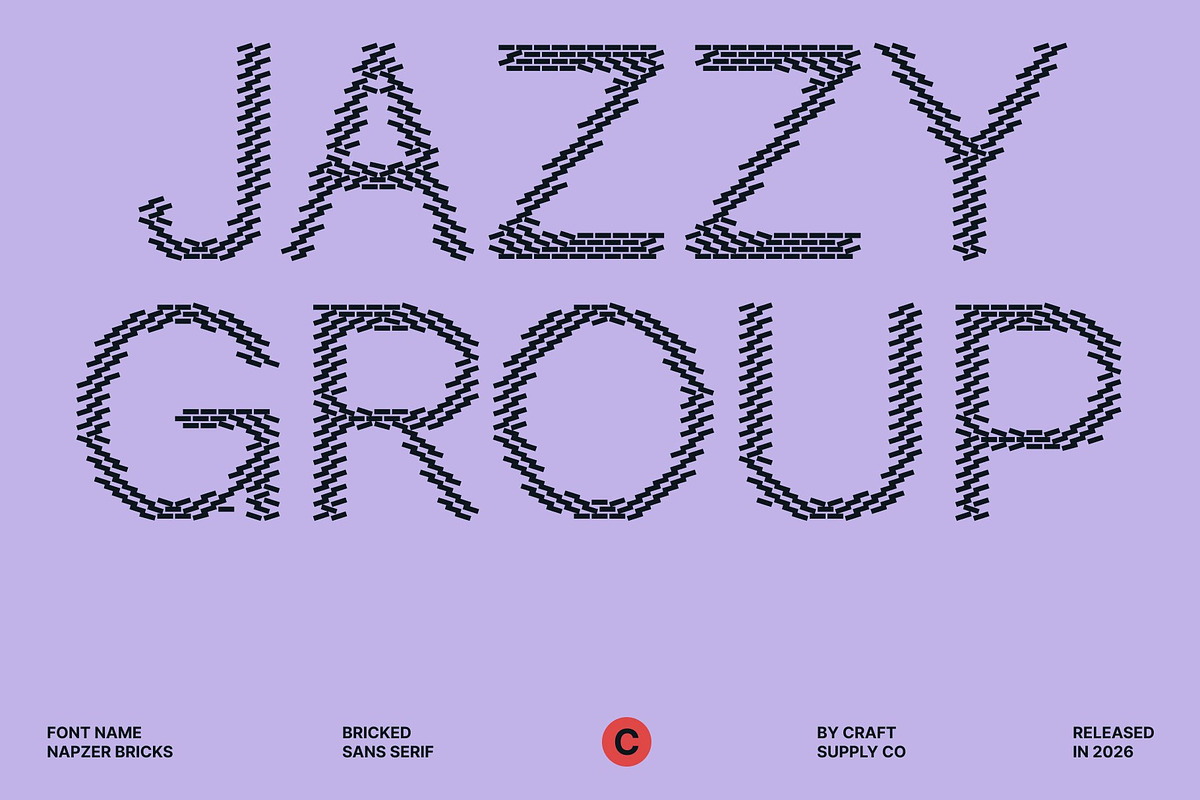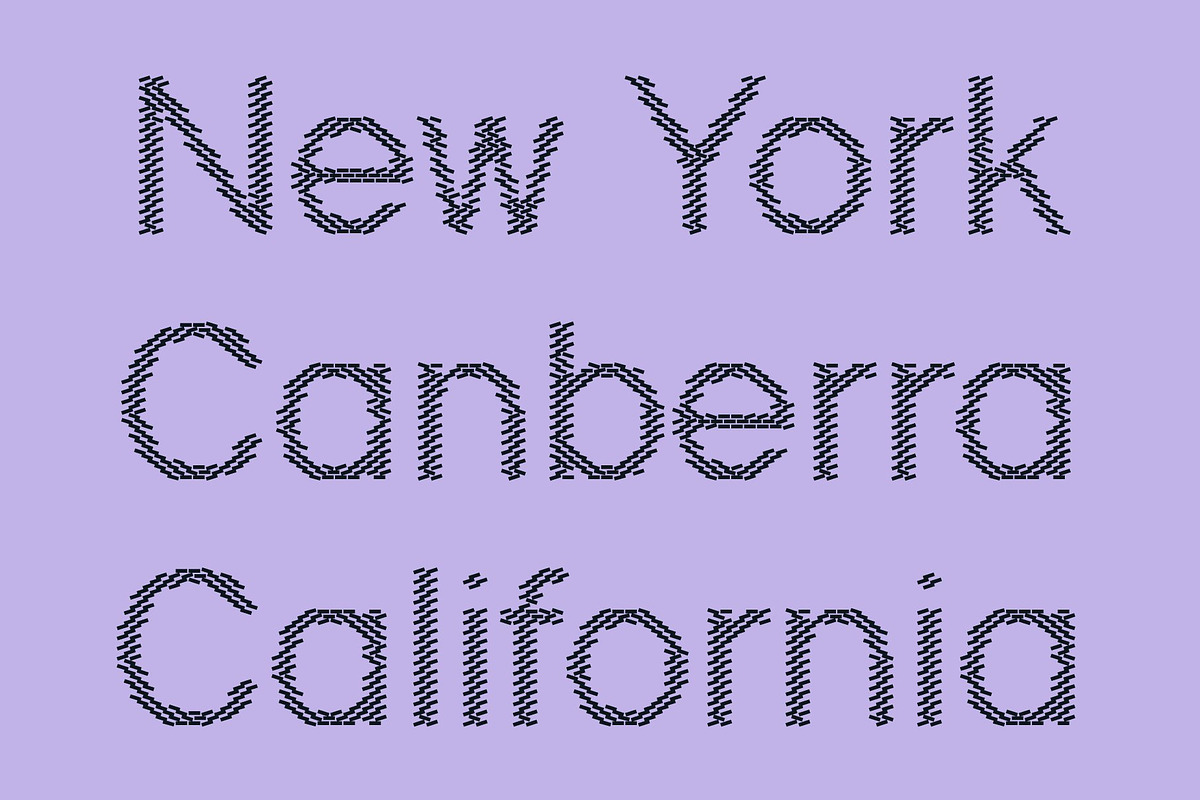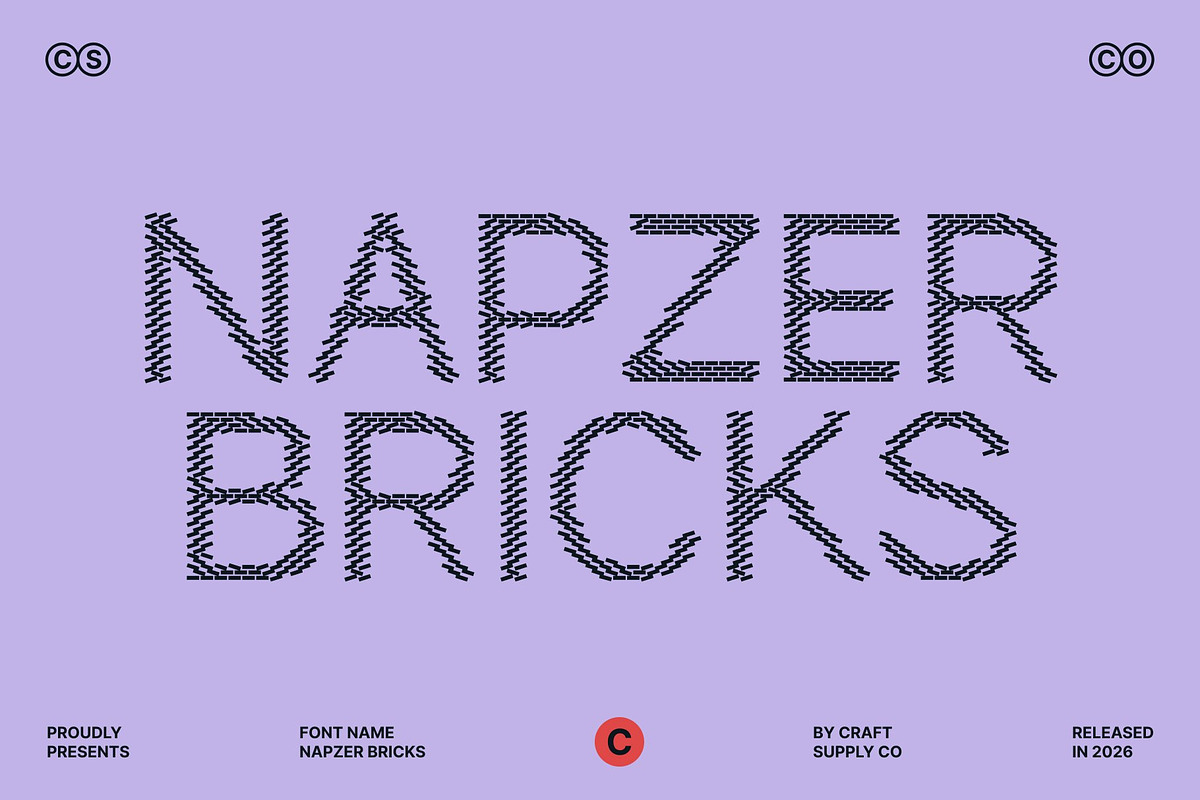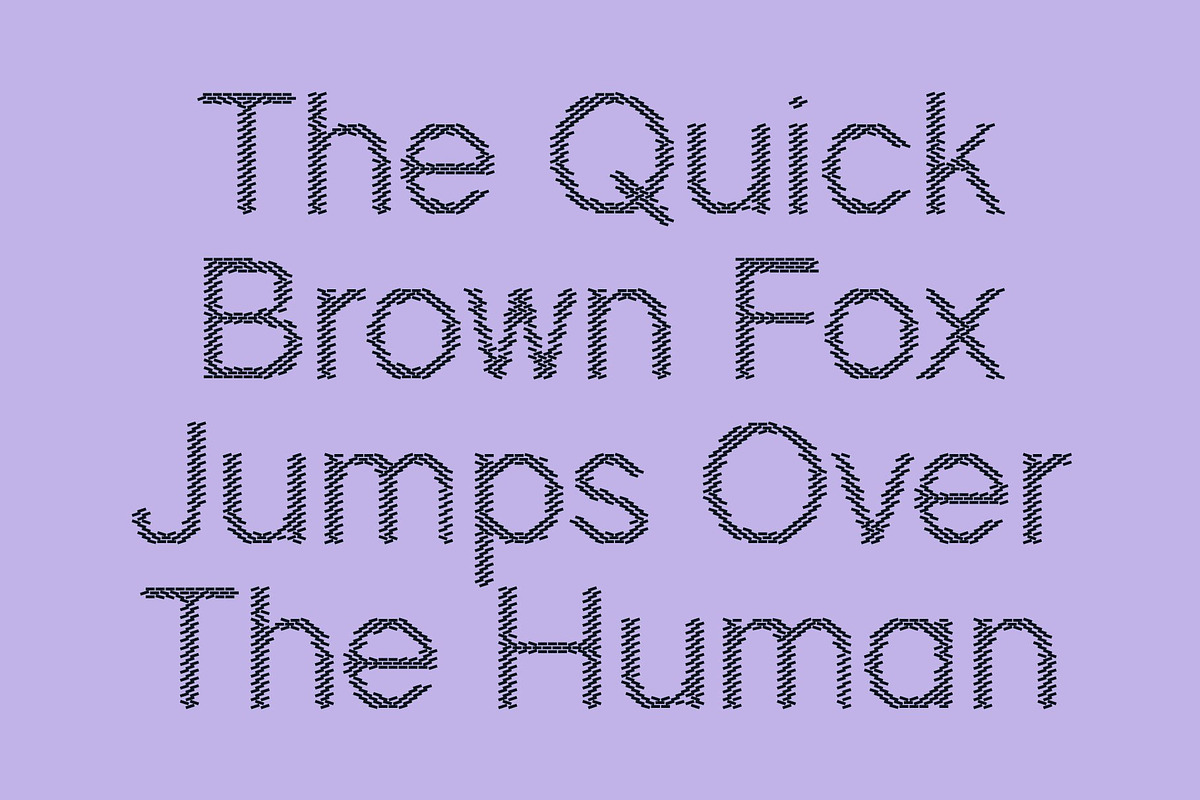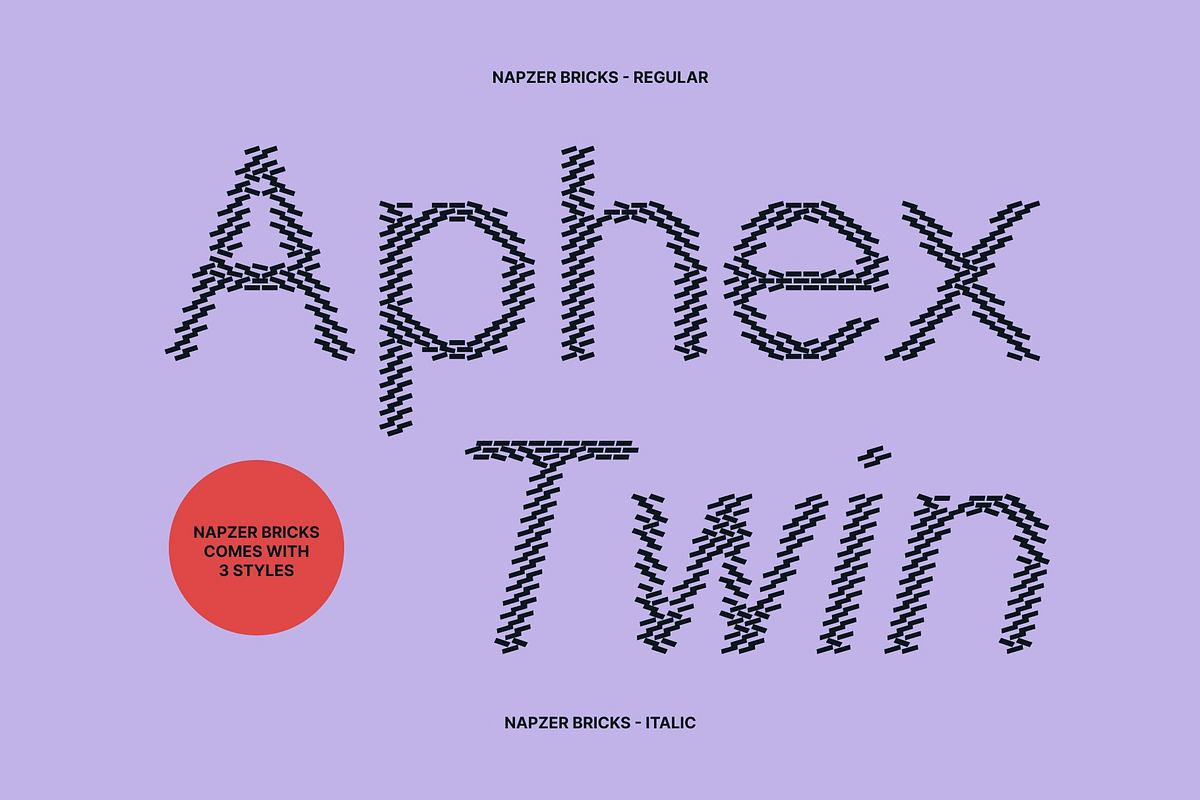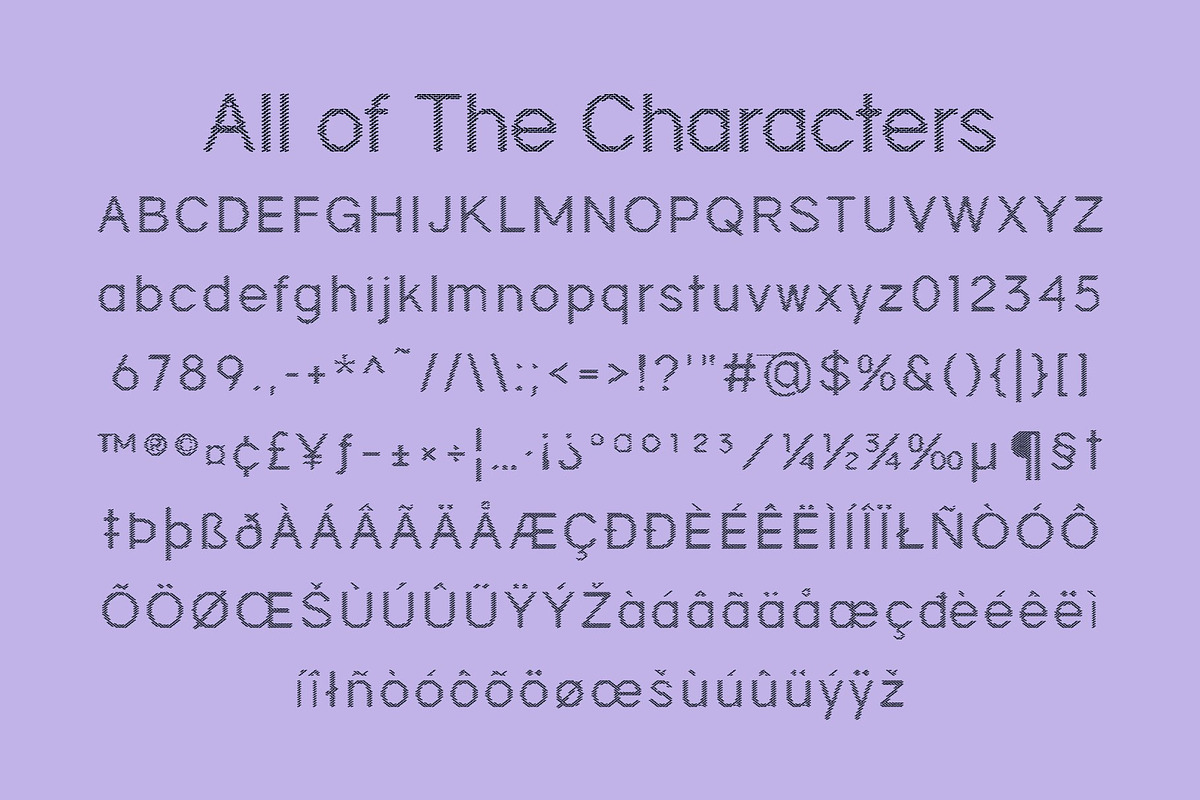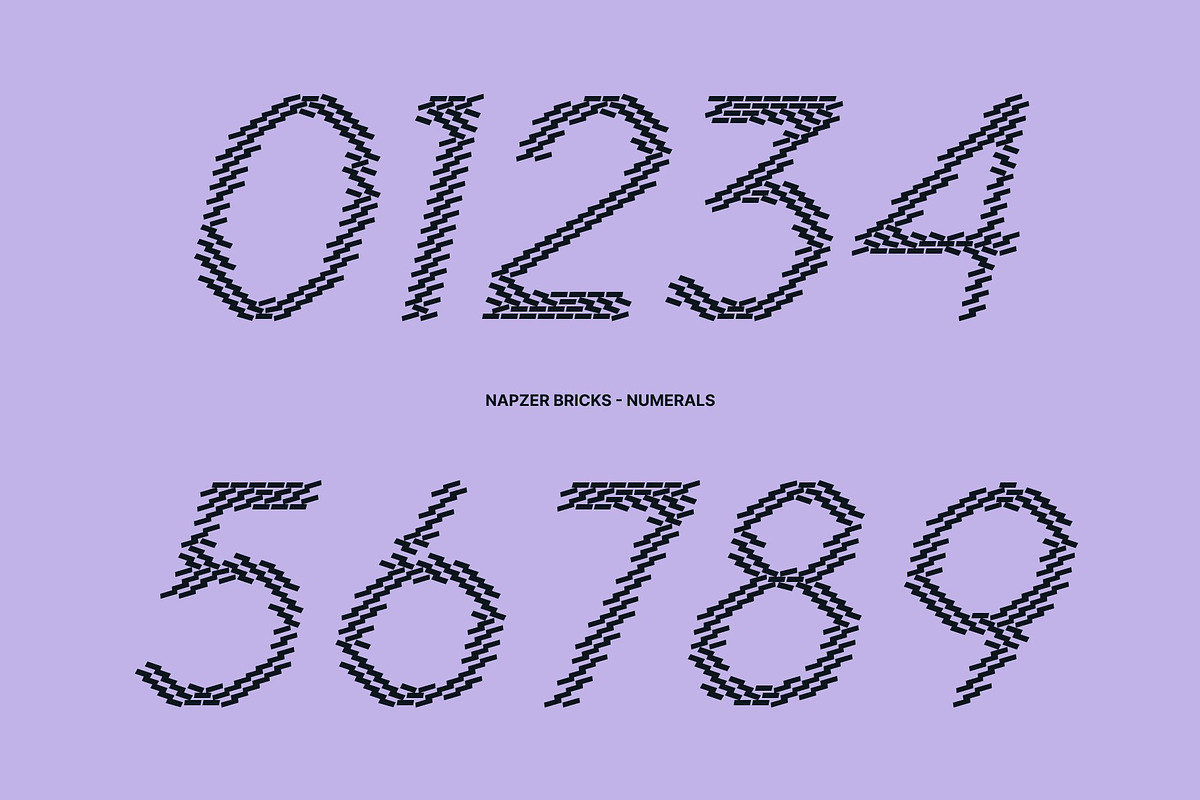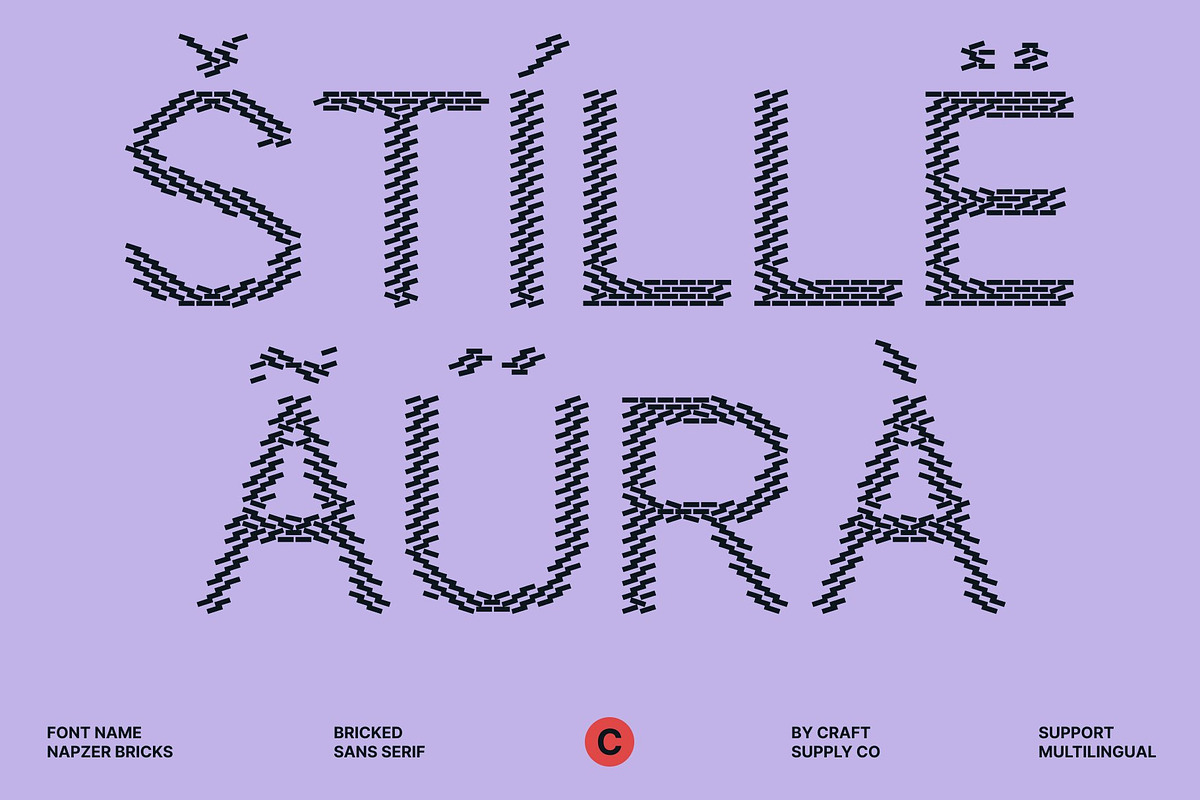
Napzer Bricks
Napzer Bricks – Geometric Sans Serif Font: Where Modern Precision Meets Decorative Brick Texture
Clean Geometric Forms with Contemporary Simplicity This is a geometric sans serif font that embodies modern typographic design through the seamless combination of precision, simplicity, and versatility. Its clean geometric structure and balanced proportions create a contemporary professional appearance that feels sleek, organized, and visually refined. Every character is crafted for clarity and consistency, making the font ideal for modern branding and impactful display compositions.
Brick-Inspired Texture with Structured Urban Character This font features decorative textures that make each letter appear as if constructed from brick elements. This structured detailing introduces a rugged architectural quality and tactile visual depth while preserving the font’s clean geometric foundation. The result is a unique blend of minimalist modernism and expressive textured design.
Modern Industrial Style with Strong Visual Appeal This font delivers a typographic identity that feels urban, energetic, and highly versatile. Its structured forms and decorative texture create a bold visual atmosphere suitable for both professional branding and creative industrial-inspired projects.
Perfect for Posters, Branding, and Urban Design This font perfect for hip-hop and street event posters, construction and property branding, retro arcade games, gym and sports logos, action movie posters, and city or building-themed designs. Its geometric brick-textured forms make it ideal for logos, signage, packaging, apparel graphics, merchandise, and visual identities that seek a contemporary and characterful appearance.
Napzer Bricks Regular
Napzer Bricks Italic